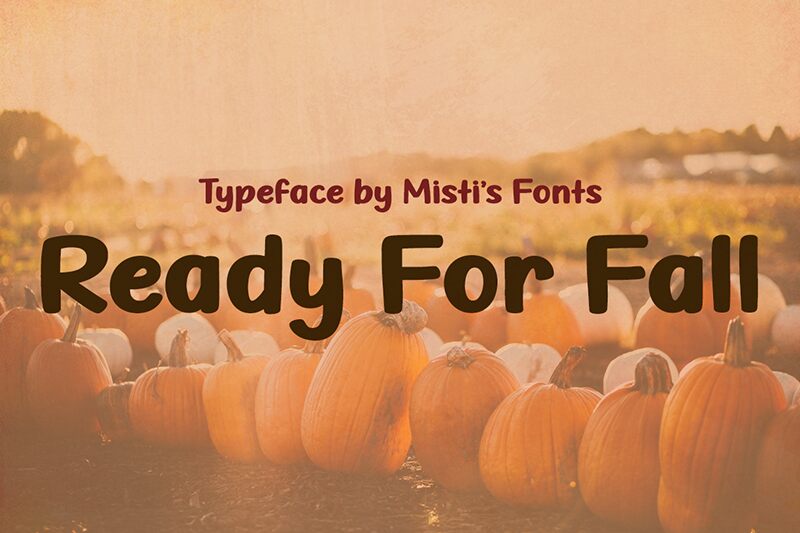
Ready for Fall
Ready For Fall is a bold handwritten font that brings the cozy charm of autumn to your designs. With its thick strokes and natural, hand-drawn style, this font adds warmth and personality to any project. Perfect for seasonal invitations, greeting cards, social media posts, and so much more!